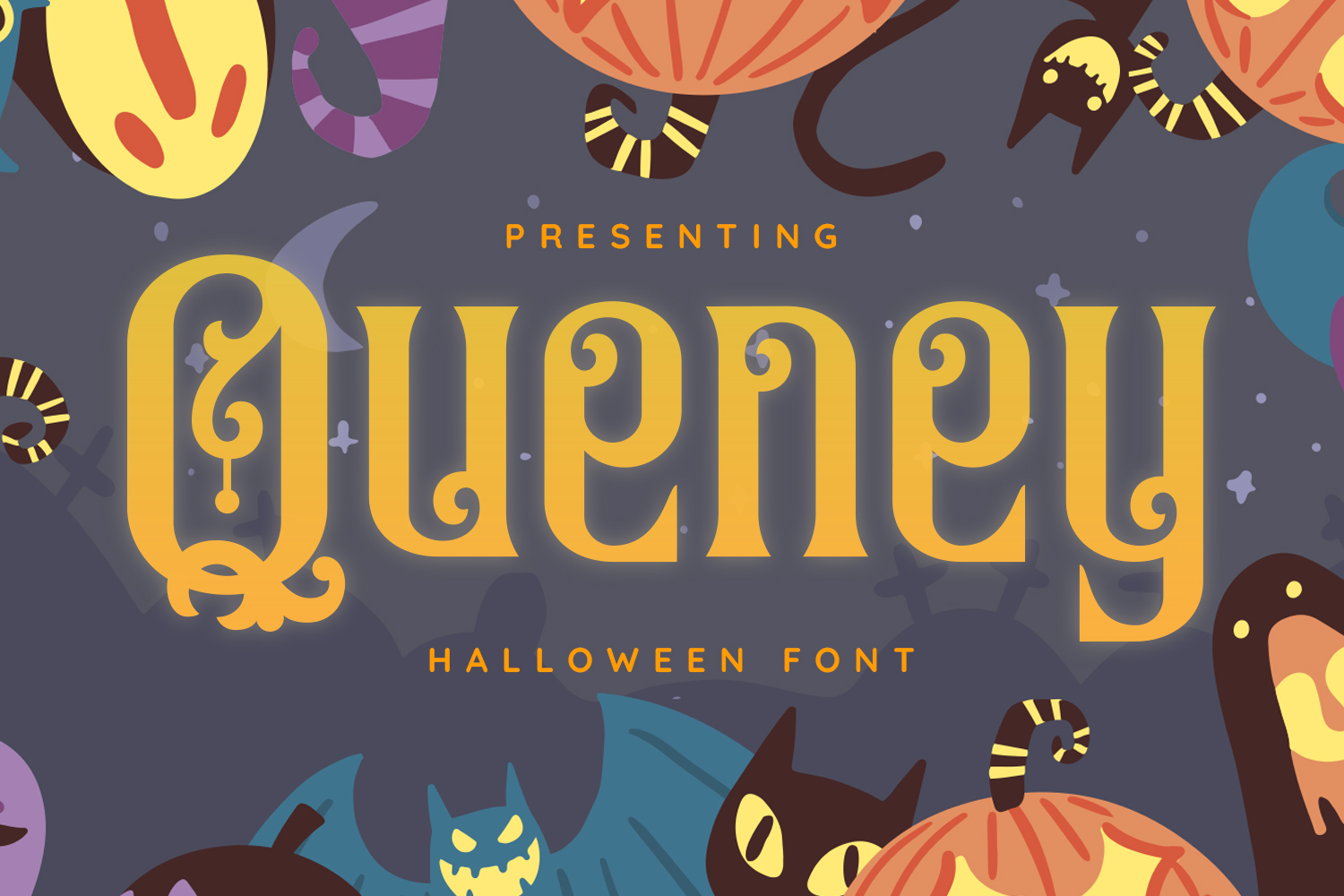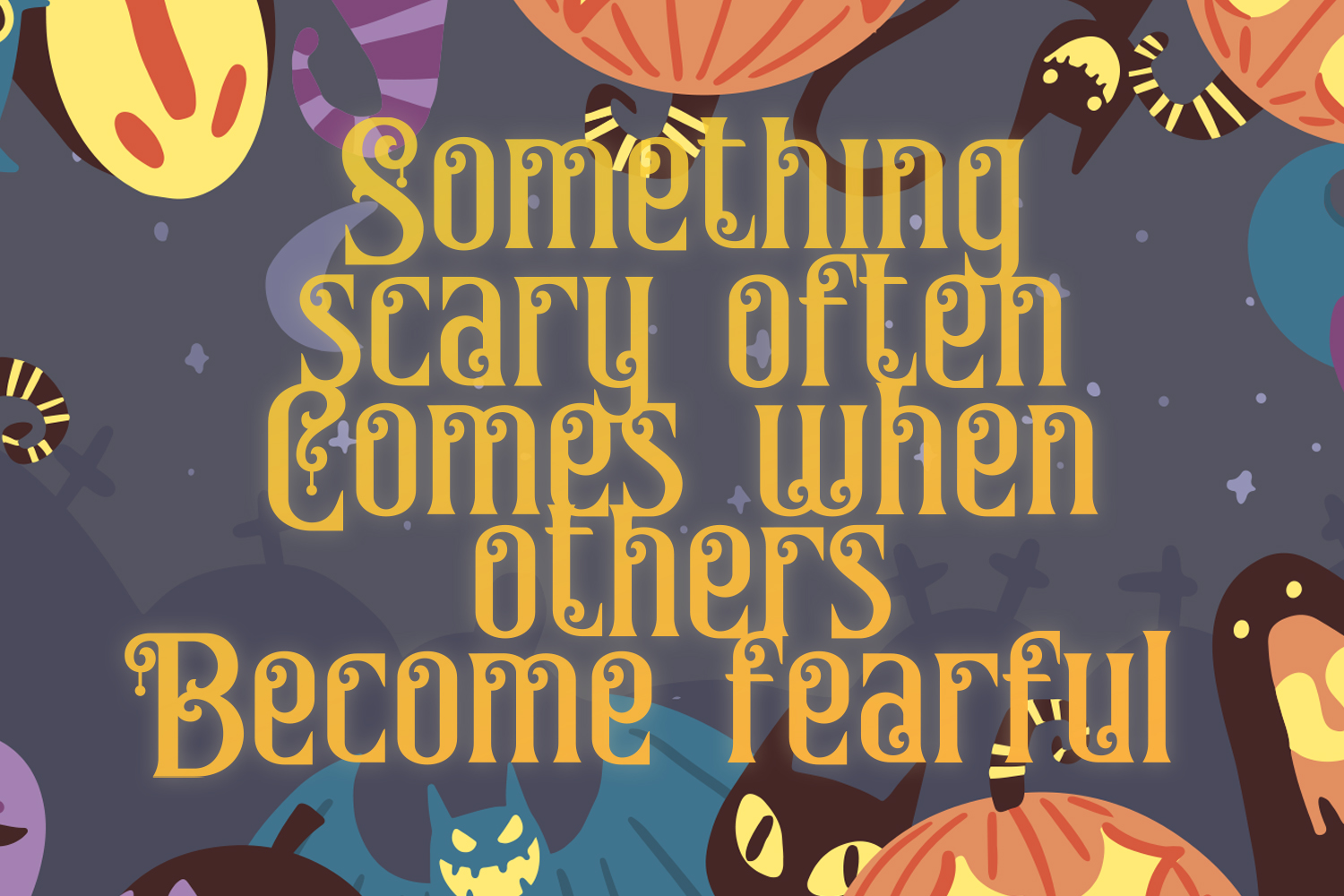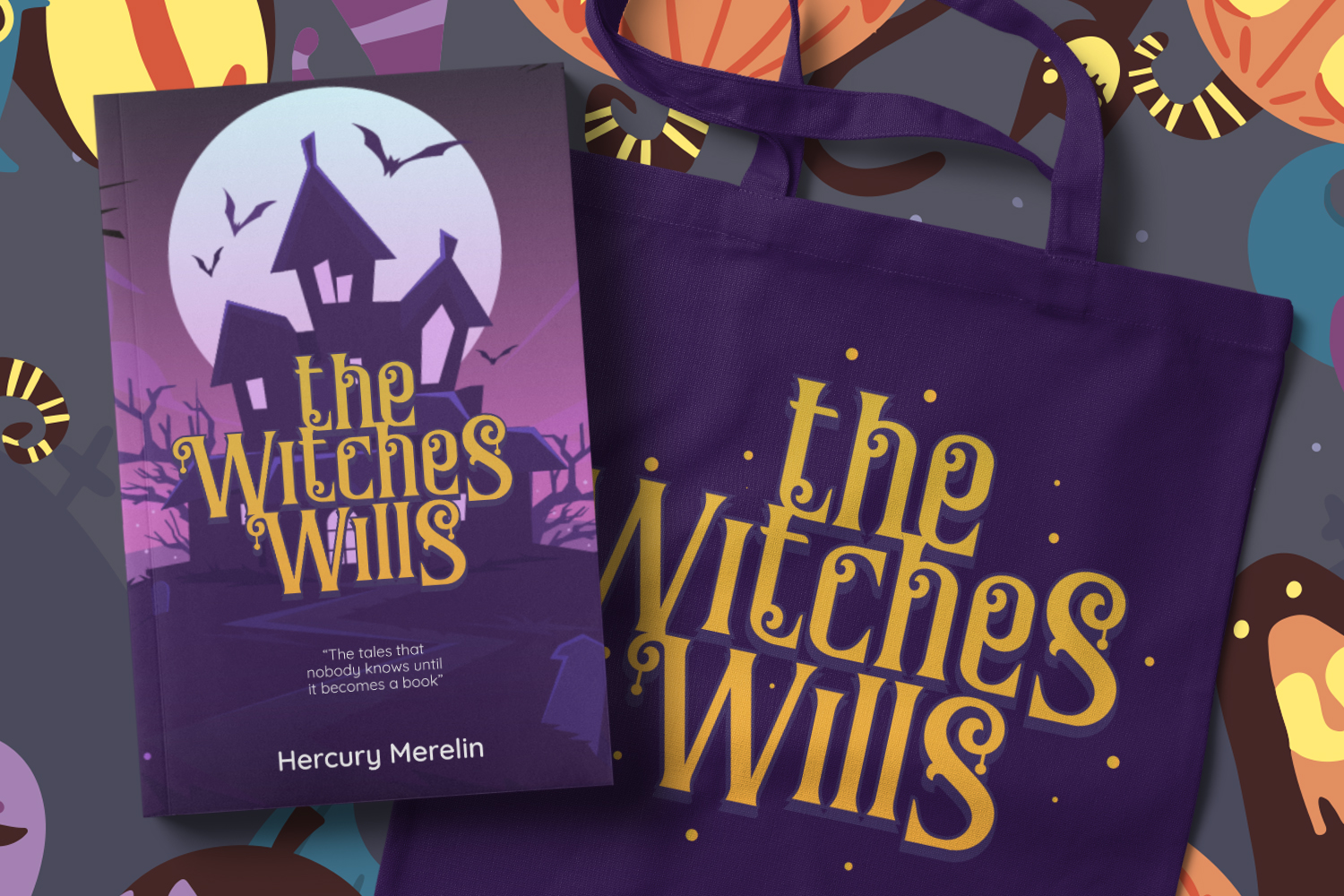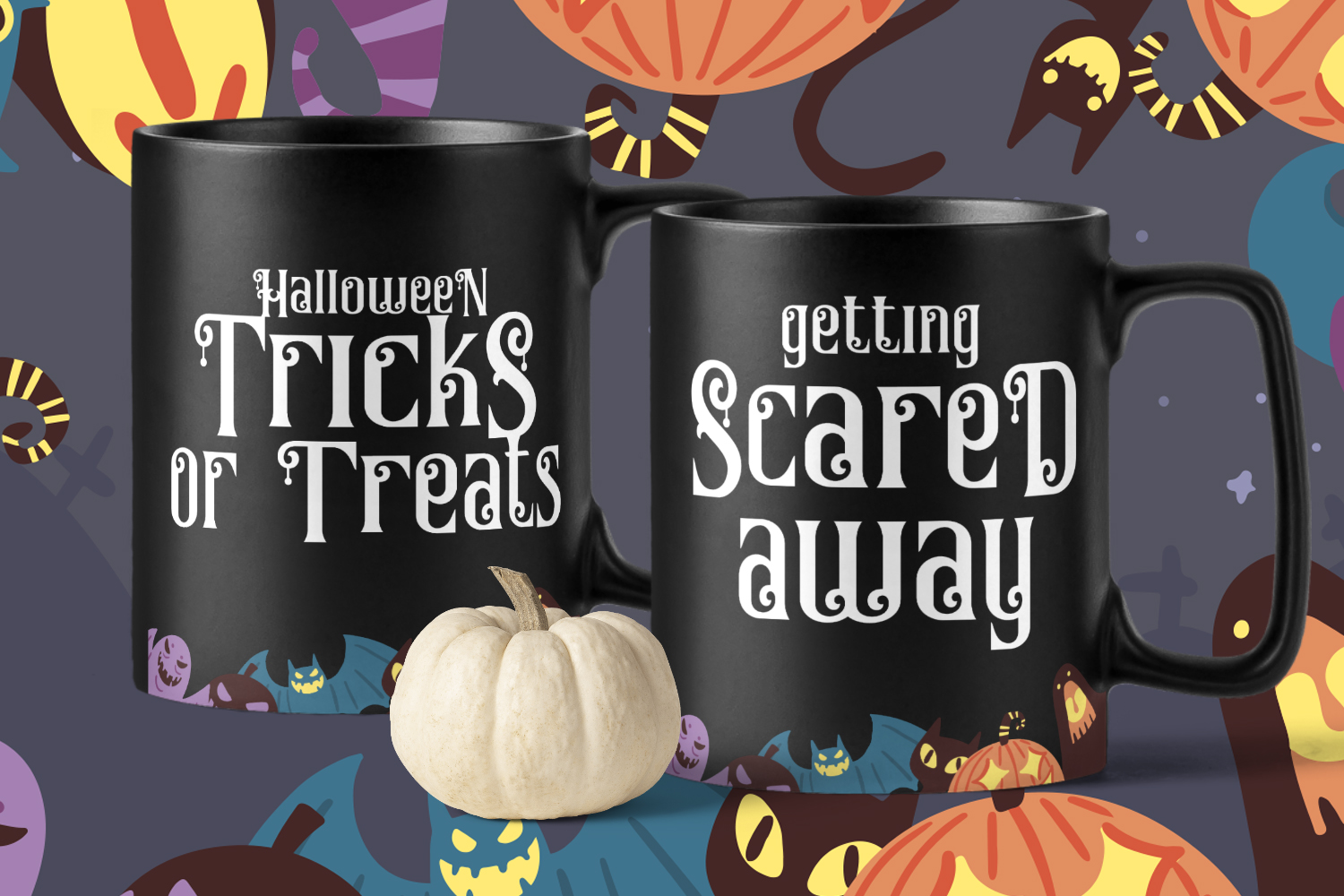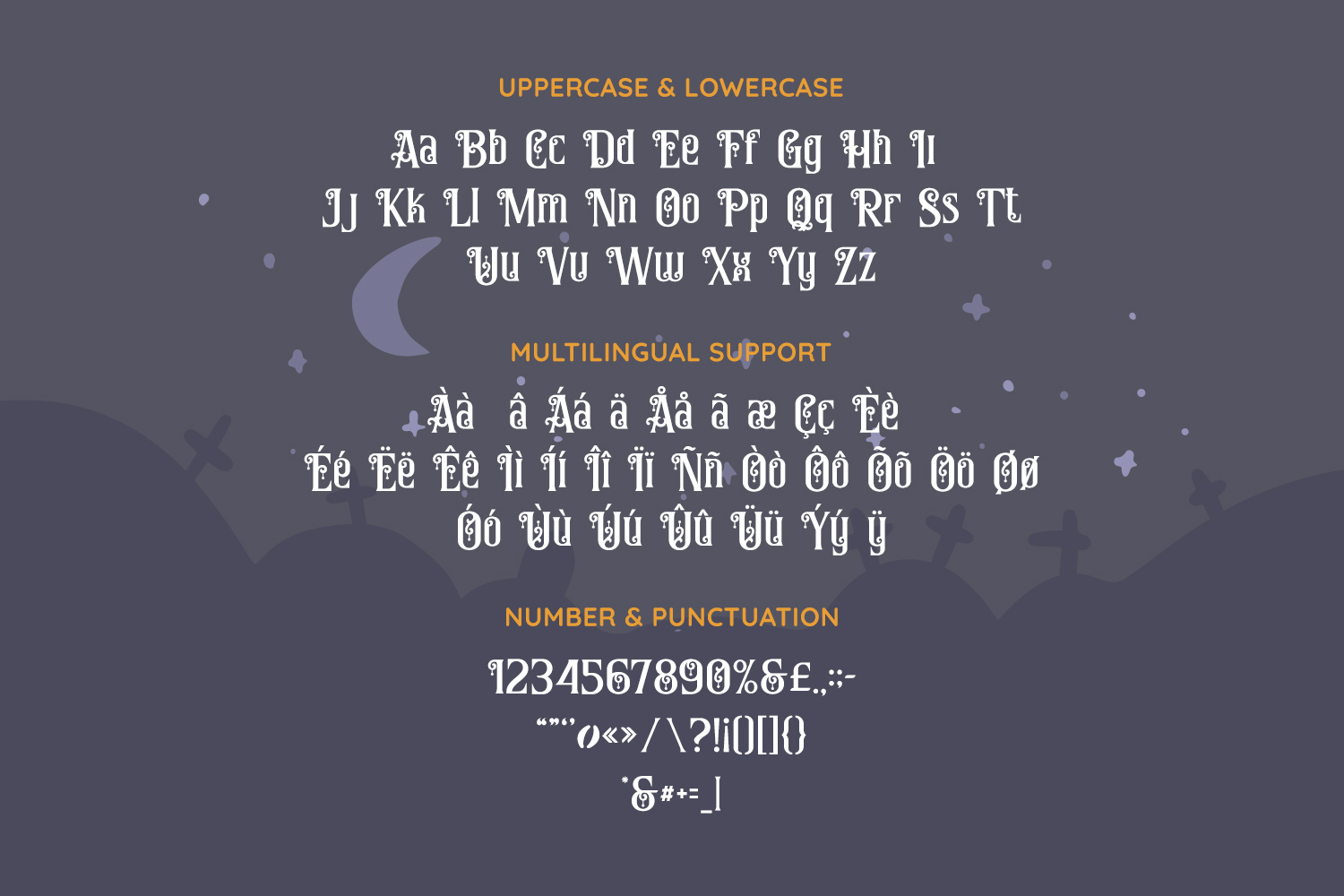
Queney is a gothic-inspired Halloween font with a stylish blend of elegance and spooky character. It features tall, condensed letterforms adorned with dramatic swashes and subtle ornamental details, evoking a vintage yet playful Halloween atmosphere. Perfect for book titles, product packaging, party invites, or magical merchandise, Queney adds a charmingly eerie aesthetic to any design.
This font includes uppercase and lowercase letters, full multilingual support, punctuation, and numerals. Whether you’re crafting trick-or-treat branding, haunted house flyers, or Halloween mugs, Queney provides a hauntingly delightful touch that captures the spirit of October with a refined twist.